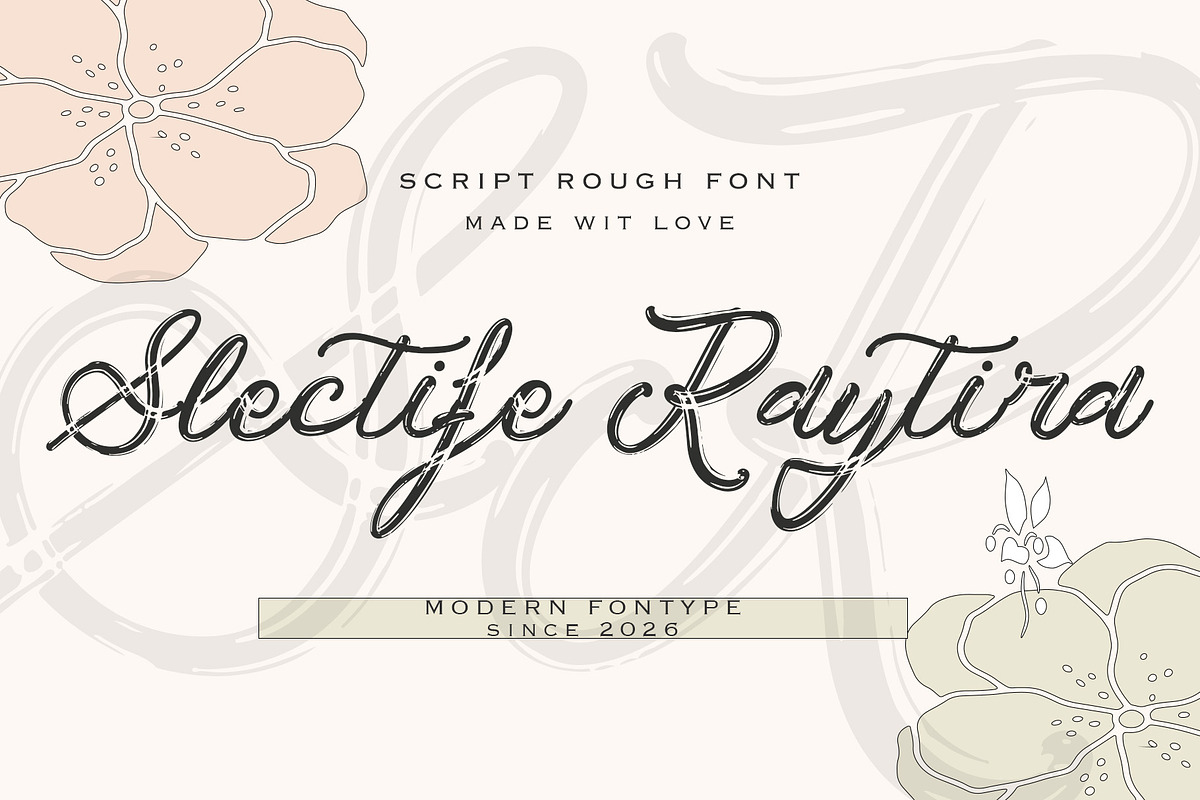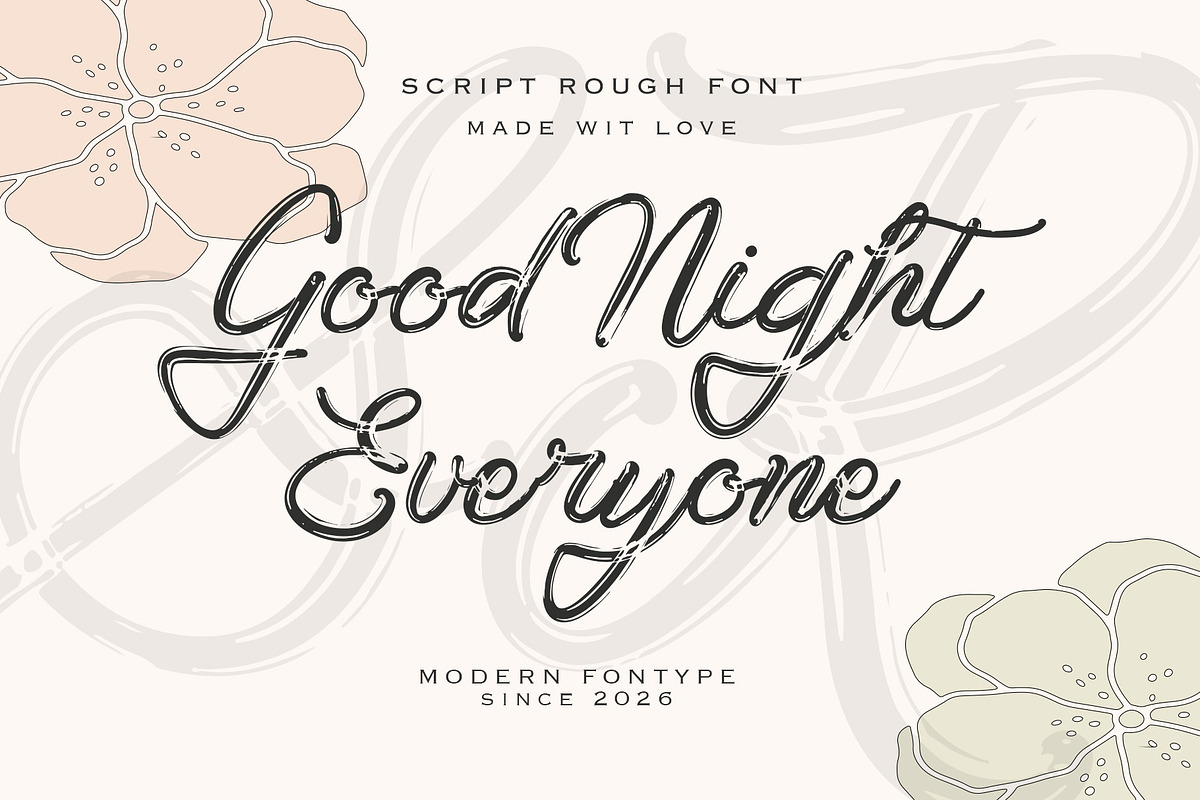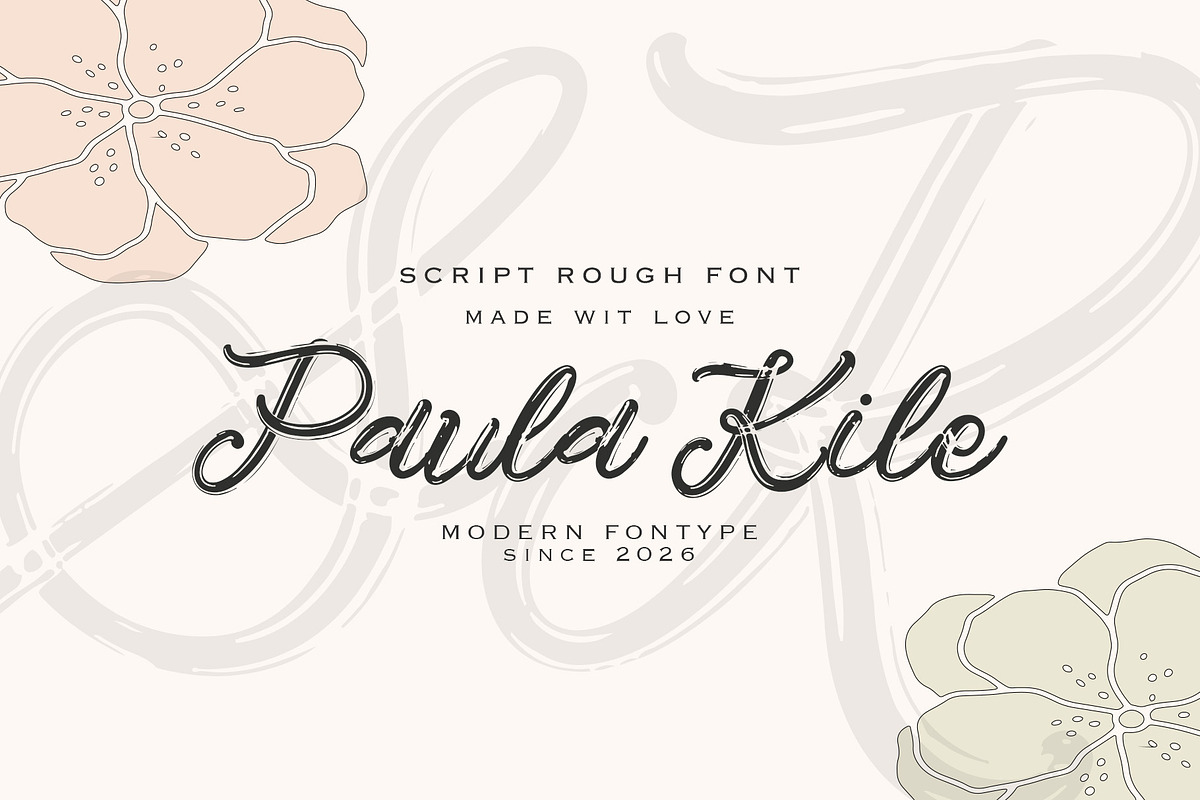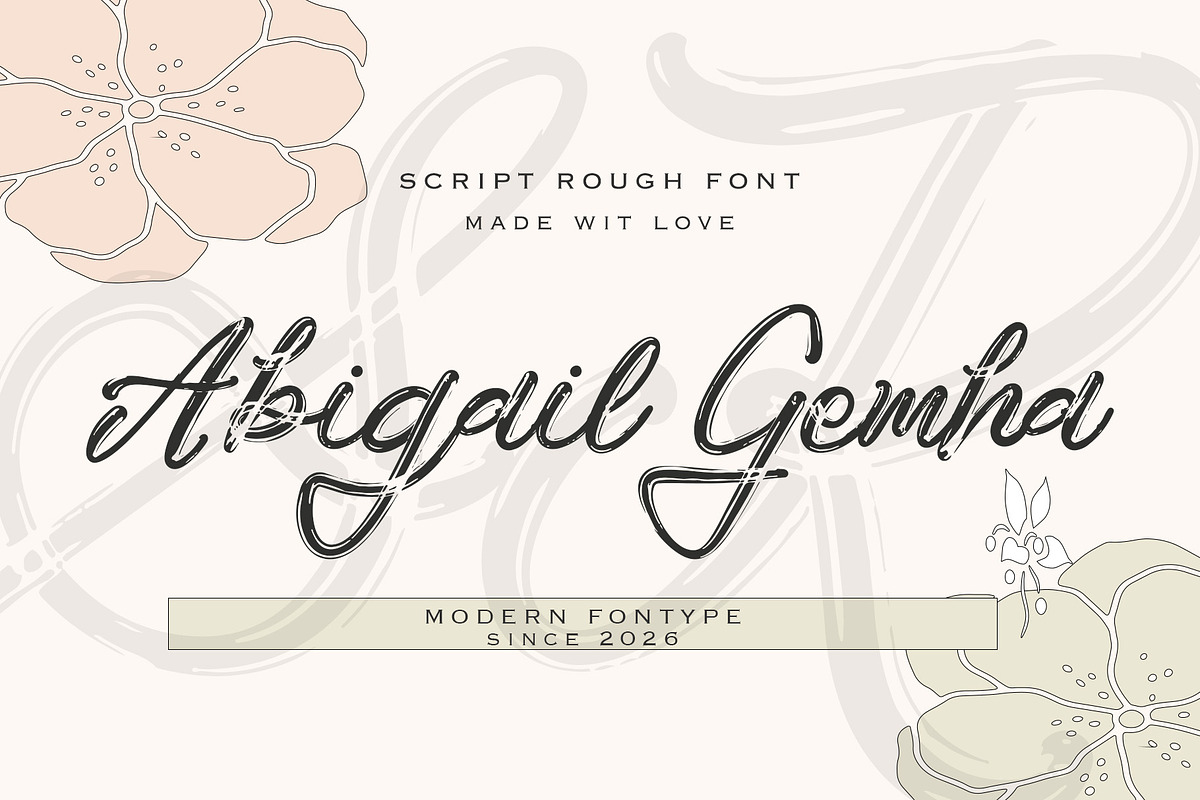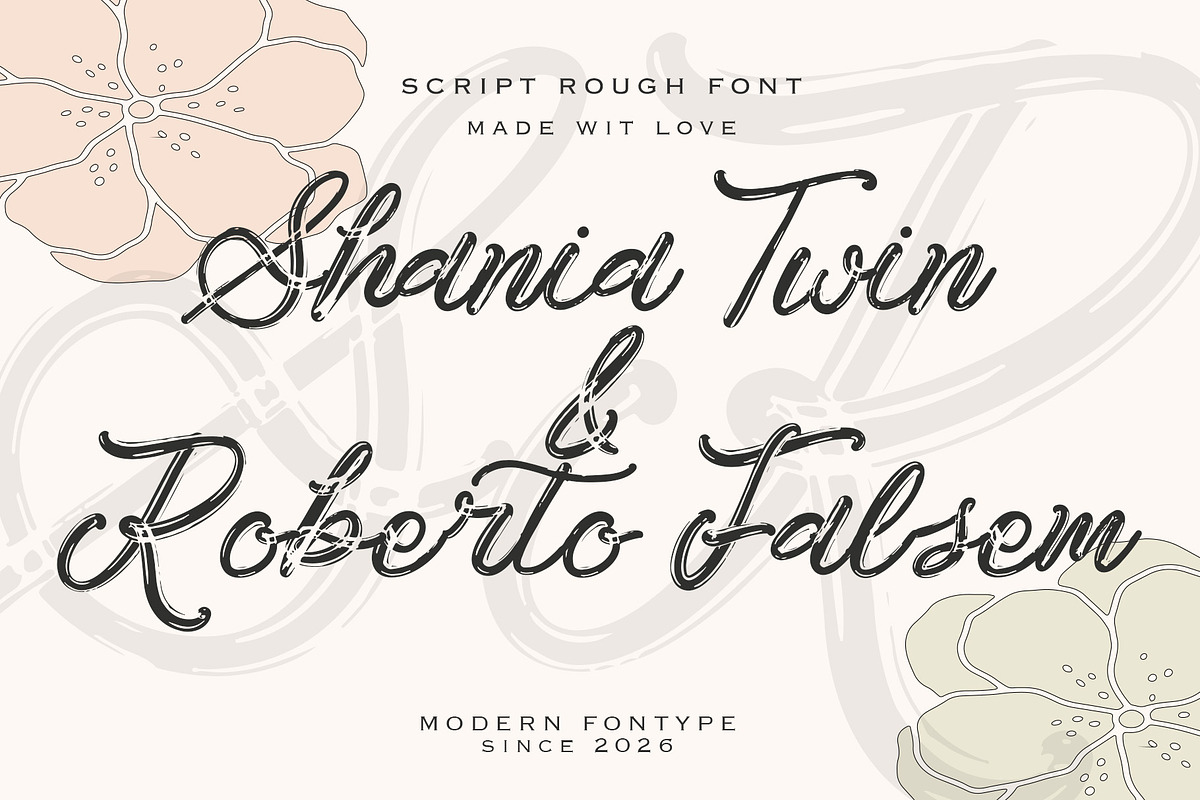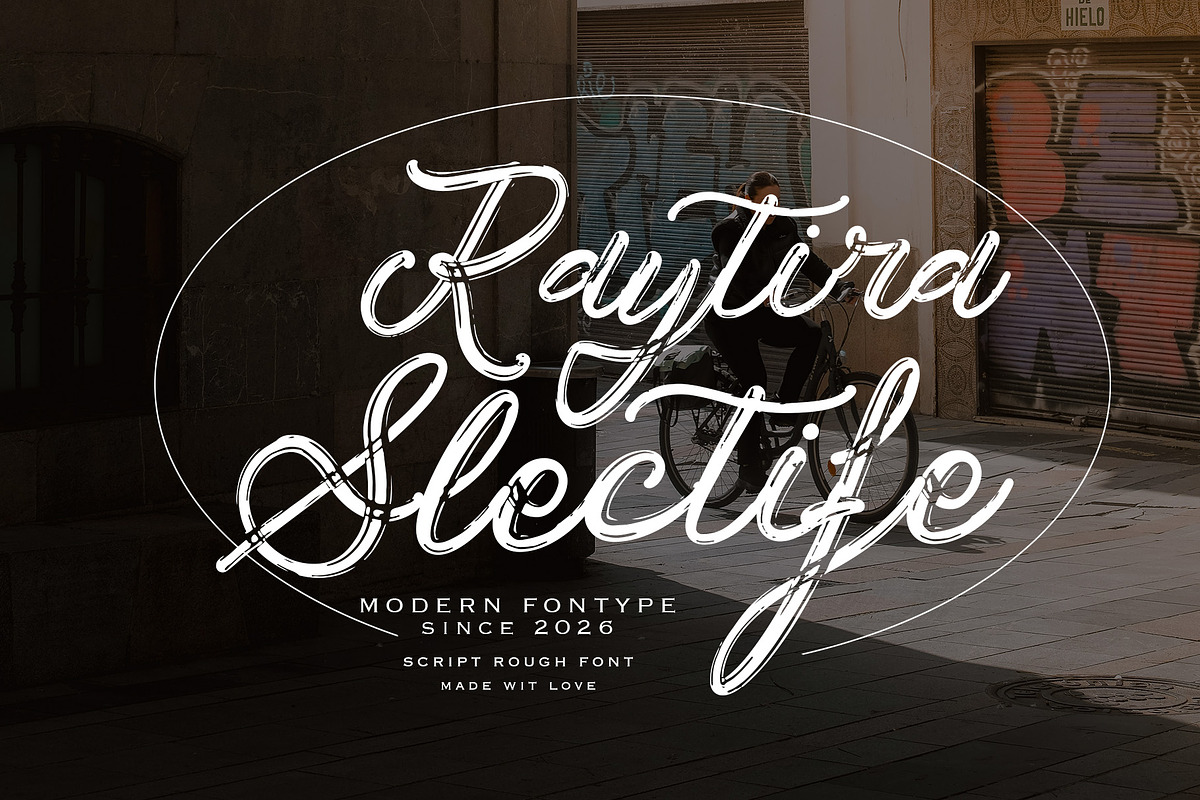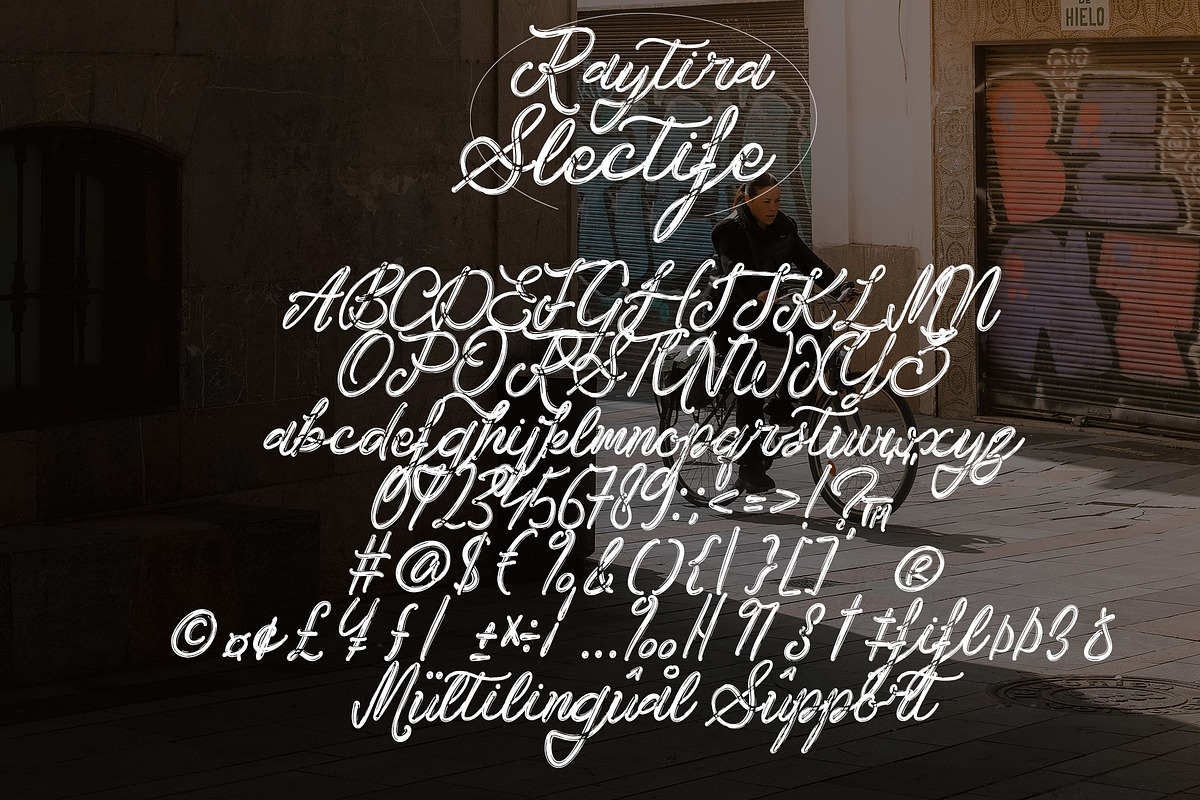
Slectife Raytira
Slectife Raytira is a modern rough script font that combines elegant handwriting with a bold textured style. Designed with expressive strokes, natural imperfections, and flowing swashes, this font delivers a handcrafted feel while maintaining a classy and stylish appearance.
Perfect for branding, logos, fashion editorials, packaging, wedding designs, social media content, and artistic typography, Electife Raytrod creates a strong visual statement with a soft vintage touch. Its rough brush texture adds character and authenticity, making every design feel more personal, trendy, and unique.
Whether you are working on luxury branding, feminine projects, retro aesthetics, or modern calligraphy layouts, Electife Raytrod offers the perfect balance between elegance and expressive typography.